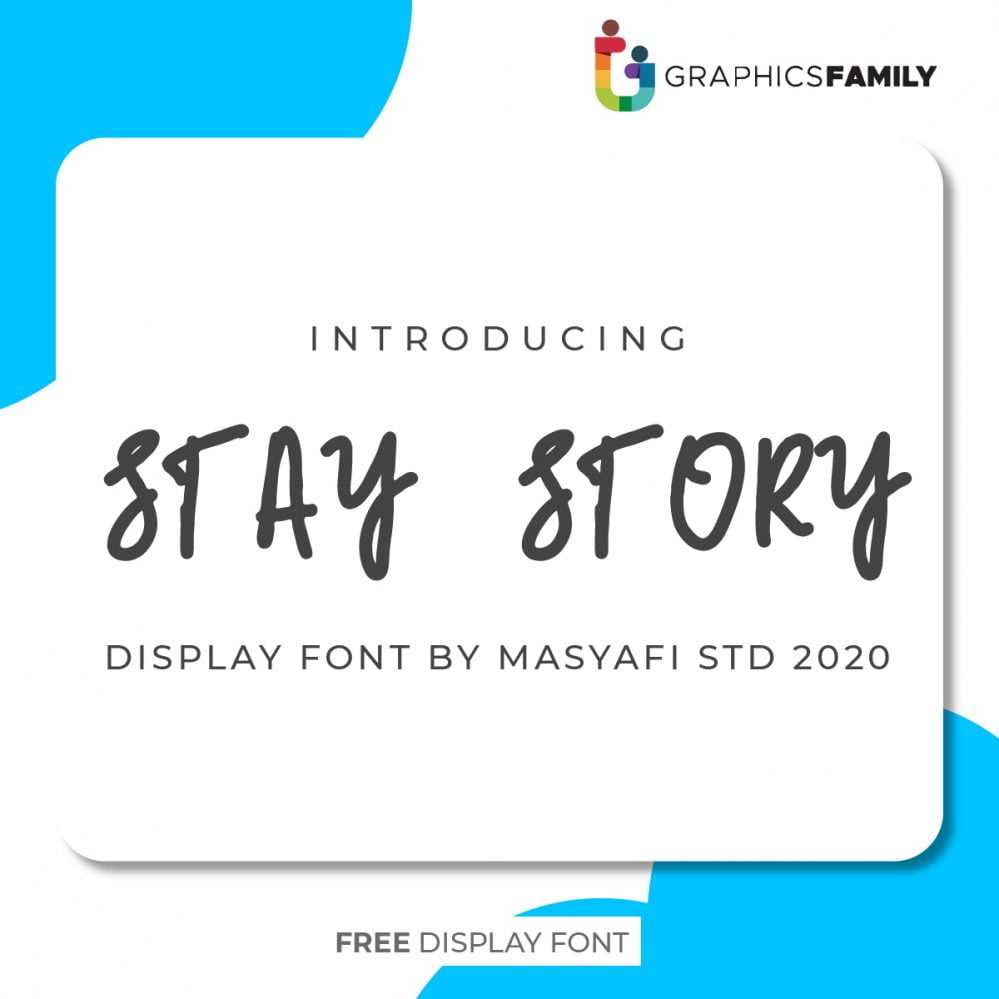
Stay Story Font Stay Story is a simple and neat display font. It embodies playfulness and authenticity and is the perfect choice for any children activity or school project.